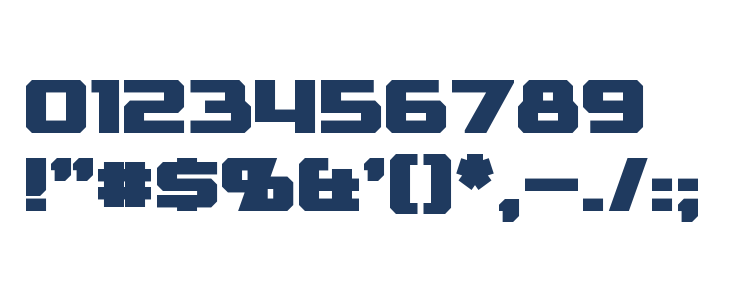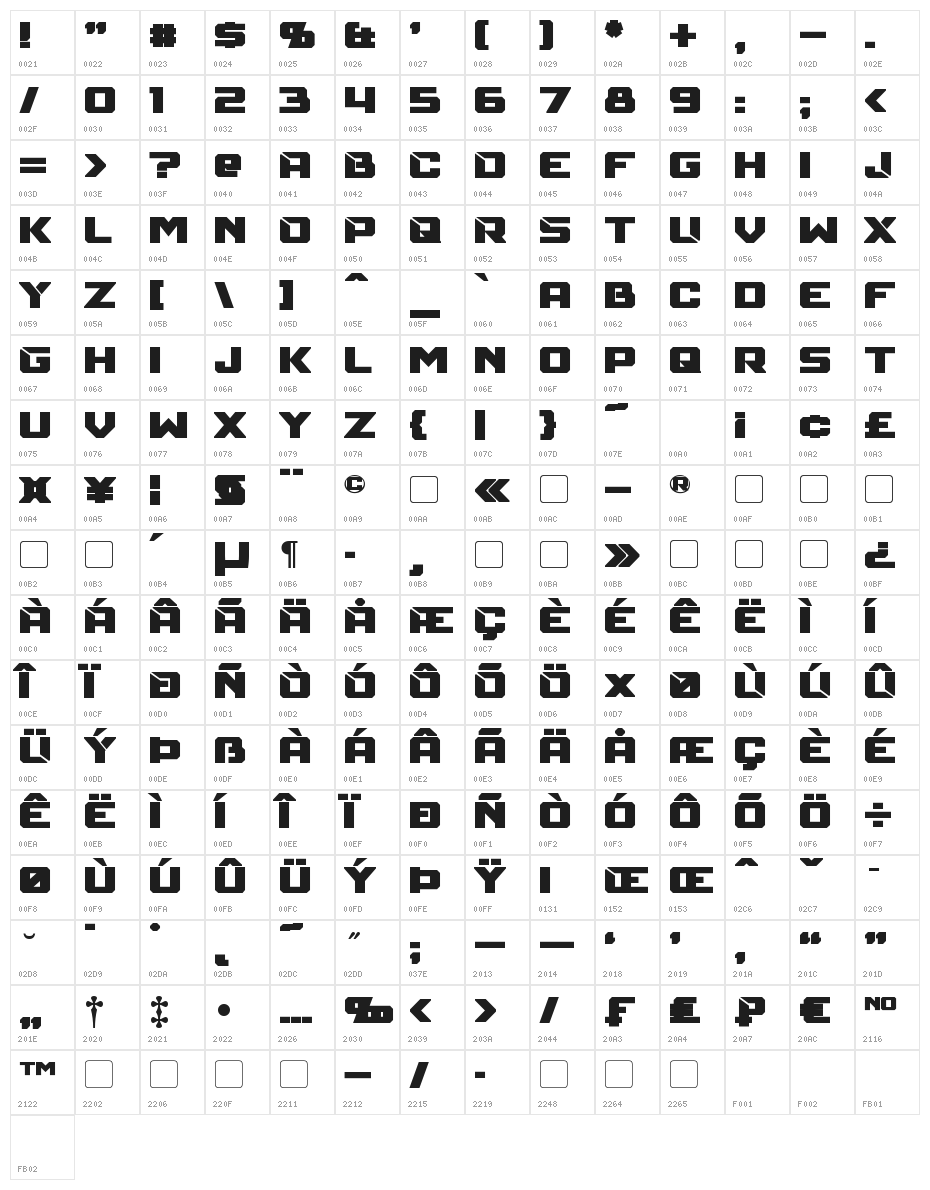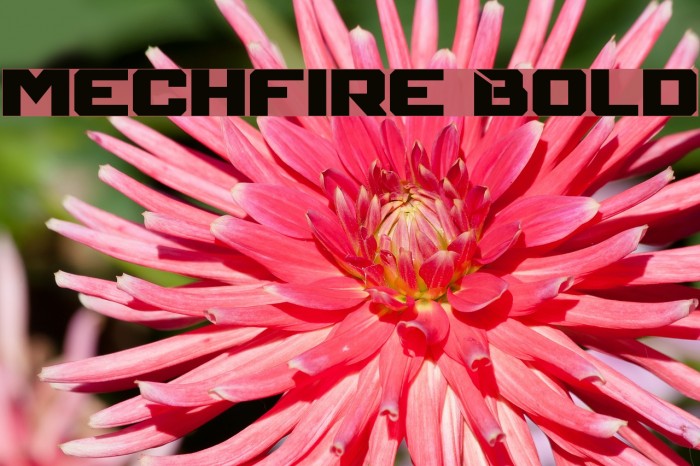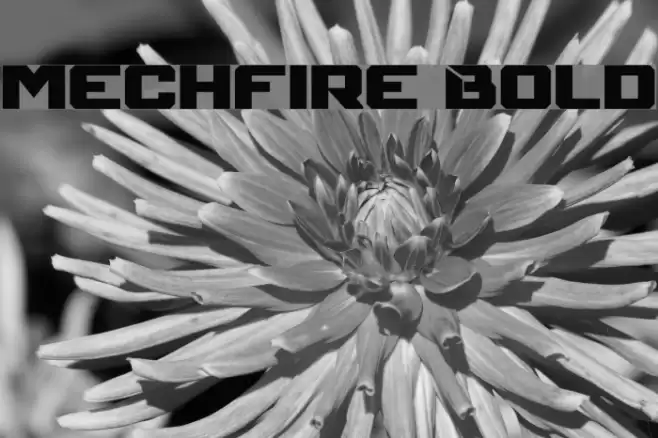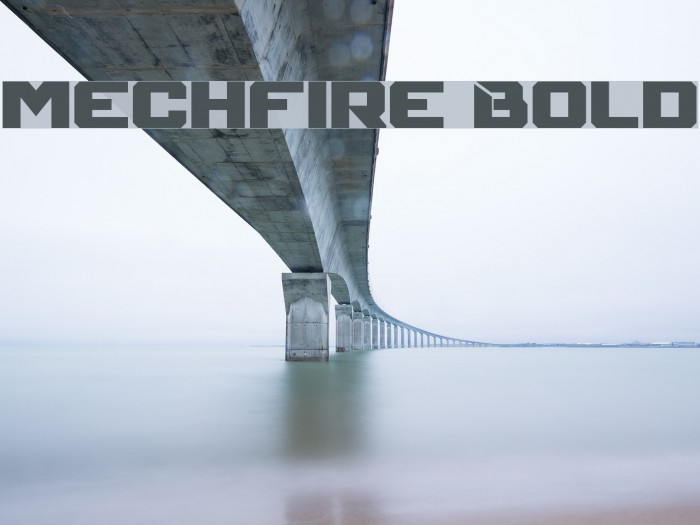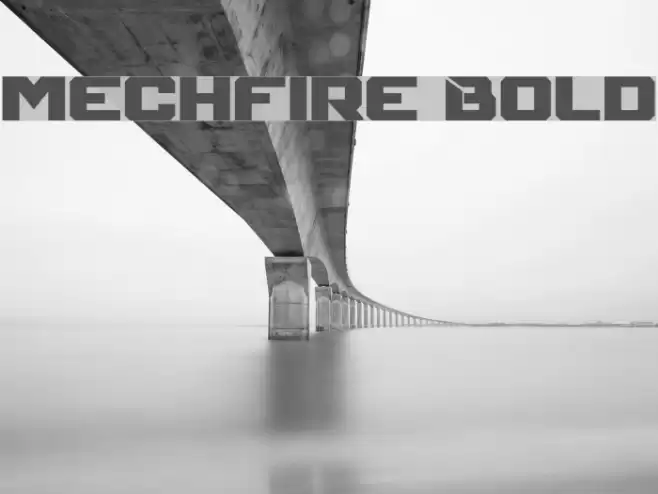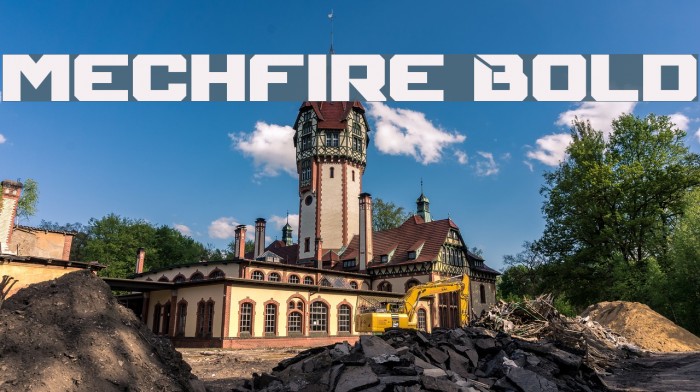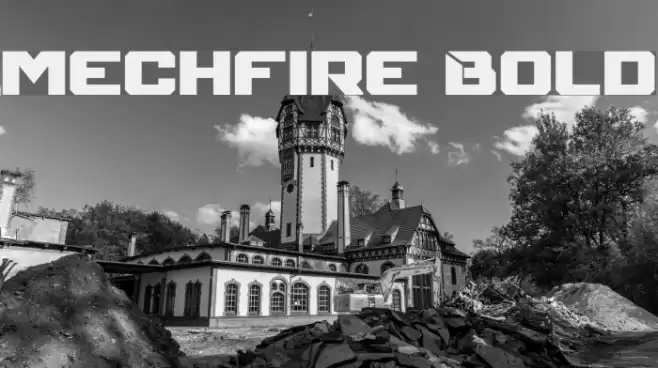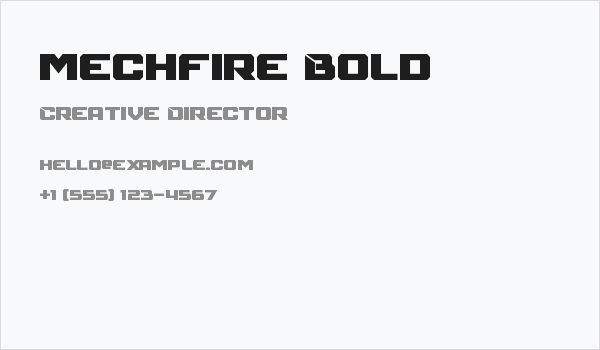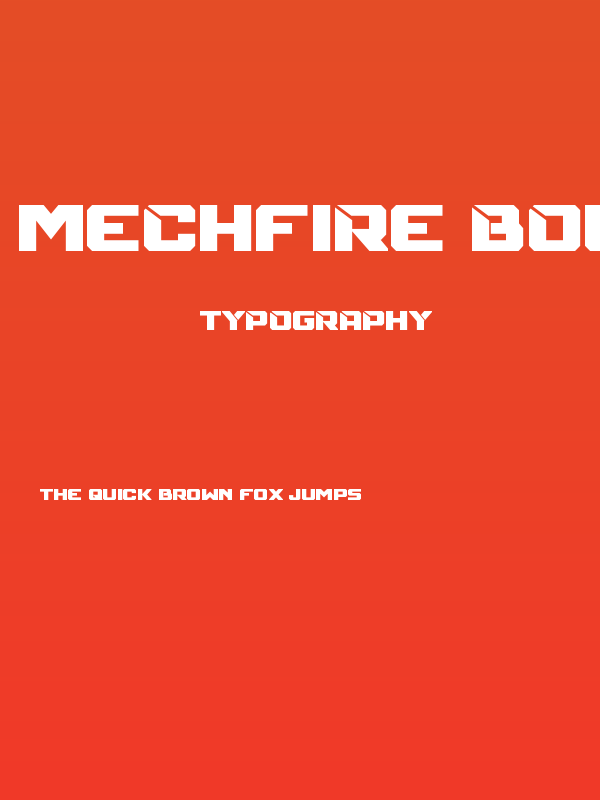
Mechfire Bold Font
Mechfire Bold Description
This font exhibits a bold and futuristic design, characterized by its geometric and angular shapes. The letters are constructed with sharp edges and a blocky appearance, giving it a strong and impactful presence. The uniformity in stroke width across characters contributes to a cohesive and structured look. Its design is reminiscent of industrial and mechanical themes, making it suitable for projects that require a modern and robust aesthetic. The font's distinct style ensures high readability and visual interest, making it ideal for attention-grabbing headlines and titles.
| Proposed Projects | Ideal for use in technology branding, video game titles, sci-fi posters, and industrial-themed designs. |